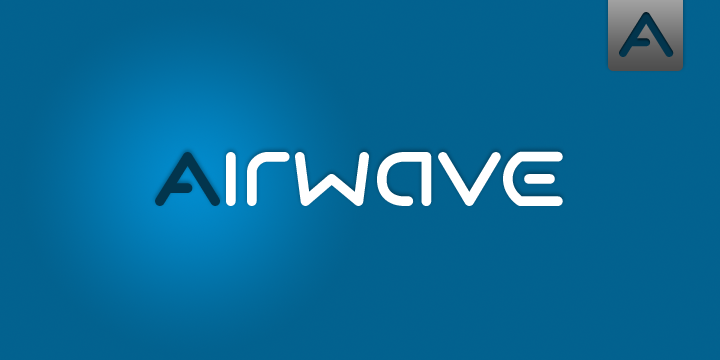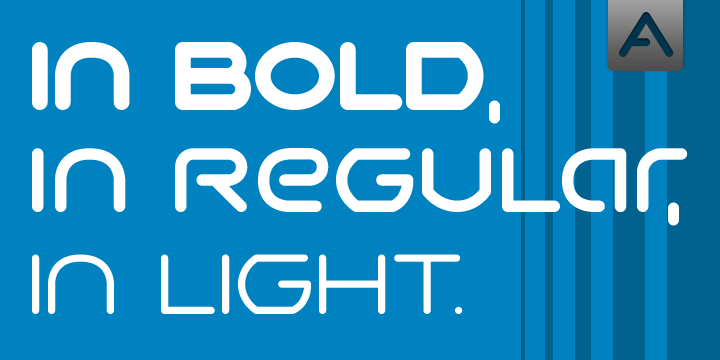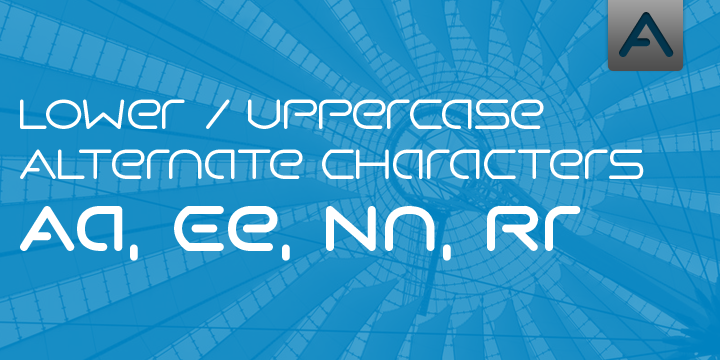
Airwave is a display sans font family. This typeface has three styles and was published by A New Machine.
Airwave is suitable for display and logo work. It comes in three faces and would work well for technical designs or for giving a fresh, modern look. It is an all cap font with a few (A, E, N, R) lower cap alternates and contains West European diacritics.